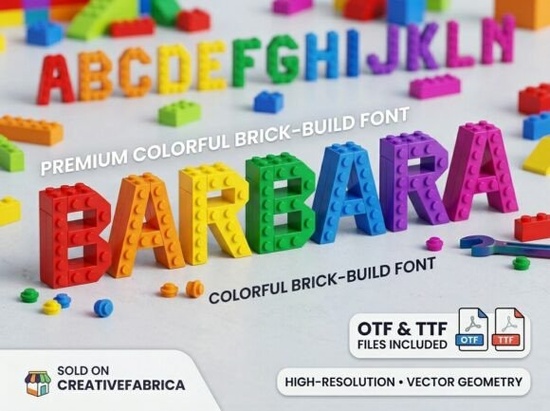
The Barbara Font is a decorative display typeface built for designs that need bold, artistic lettering to stand out. If you've been searching for a font that breaks away from the usual clean and minimal styles, this one brings personality, detail, and a creative edge to your work. It works especially well when typography is meant to be the main visual element of a design.
What Makes This Decorative Font Different?
Most decorative fonts lean heavily on one style either ornate, grungy, or overly stylized. This typeface strikes a balance between artistic detail and readability. The letterforms have intricate creative touches without becoming illegible, which is a common problem with heavily stylized fonts.
The decorative display font works well at larger sizes where the details can really show. Think headlines, poster titles, and logo wordmarks. At smaller sizes, some of the finer details may get lost, so it's best used where the text has room to breathe.
What Can You Use It For?
This font fits a range of creative projects. Here are some practical uses:
- Posters and flyers bold headlines that grab attention from a distance
- Brand identity logos and wordmarks for creative businesses that want a distinctive look
- Social media graphics Instagram posts, YouTube thumbnails, and Pinterest pins
- Packaging design product labels, box art, and creative packaging for small brands
- Print-on-demand products T-shirts, mugs, tote bags, and wall art
- Event materials wedding invitations, party invitations, and event signage
It pairs nicely with simpler sans-serif fonts for body text, letting the display font do the heavy lifting in headlines while keeping the rest of the design clean.
Is It a Good Fit for Print-on-Demand Sellers?
If you sell on platforms like Redbubble, Merch by Amazon, or Etsy, having a few standout display fonts in your toolkit is important. Generic fonts make designs look forgettable. A font with real visual character helps your products stand out in crowded marketplaces.
This typeface works well for:
- Typography-focused T-shirt designs where the words are the design
- Motivational and quote-based products that need a strong, stylish font
- Niche designs where you want the lettering to feel handcrafted or artistic
How Does It Compare to Other Decorative Fonts?
Both fonts fall under the decorative category, but they serve different moods. Barbara leans toward bold, modern, and high-impact. The floral monogram font is softer and more ornamental. Having both in your font library gives you more options depending on the project.
Tips for Working With Display Fonts
Display fonts like this one look best when you follow a few simple guidelines:
- Give the text space. Don't crowd decorative letterforms with too many other elements. Let the font breathe.
- Use it for headlines only. Avoid setting paragraphs or long text blocks in a decorative font. It becomes hard to read.
- Pair it with a neutral font. A clean sans-serif like Montserrat or Open Sans for body text balances out the bold display font nicely.
- Adjust letter spacing. Decorative fonts sometimes benefit from slightly increased tracking to let the details show.
- Test at your final size. Always preview the font at the size it will appear in your finished design, not just on your canvas.
Where to Get It
You can find this font on Creative Fabrica, which is a popular platform for designers and crafters looking for affordable fonts, graphics, and craft files. They offer both individual purchases and subscription plans, so you can choose what works best for your budget and project needs.
Quick Checklist Before You Buy
- Check the license make sure it covers your intended use (personal, commercial, POD, etc.)
- Look at the full character set preview uppercase, lowercase, numbers, and special characters